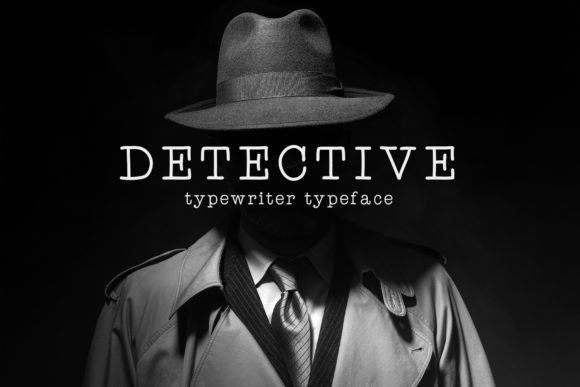
Step into a world of timeless elegance with Detective Font, a serif masterpiece that effortlessly blends the charm of yesteryear with the sophistication of modern typography. Crafted with meticulous attention to detail by the visionary designers at HipFonts, Detective Font is not just a font; it's an invitation to embark on a journey through history, a journey where the written word takes center stage.
Unleash the power of communication with Detective Font, meticulously designed to elevate your business correspondence, personal letters, and creative projects to new heights of refinement. Experience the satisfaction of words that flow effortlessly from your fingertips, leaving an indelible mark of professionalism and sophistication. Let Detective Font be your trusted companion in conveying your message with unwavering clarity and timeless charm.
Detective Font's distinct personality shines through in its carefully crafted curves, delicate serifs, and generous proportions. Each character exudes a sense of individuality, inviting you to explore the nuances of typography and discover a world of expressive possibilities. Whether you're crafting a heartfelt letter, composing a compelling report, or designing a captivating marketing campaign, Detective Font will transform your words into visual masterpieces that resonate with your audience.
Embrace the nostalgia of the past while embracing the innovation of the present with Detective Font. Its classic charm evokes a sense of authenticity, while its modern sensibility ensures that your message remains relevant and impactful in today's fast-paced digital landscape. Experience the best of both worlds as Detective Font effortlessly bridges the gap between tradition and modernity, leaving your readers with a lasting impression of elegance and sophistication.